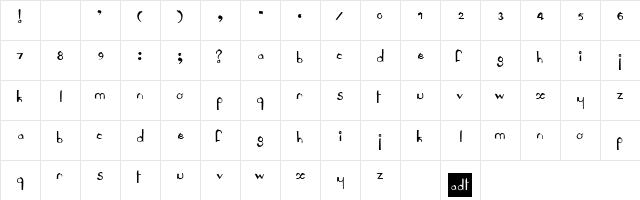
Le Antoine Regular Font Preview
Le Antoine Regular
Design Context for Le Antoine Typeface
Le Antoine takes a measured approach to typography — its balanced proportions and neutral character make it a reliable workhorse for both digital and print work.